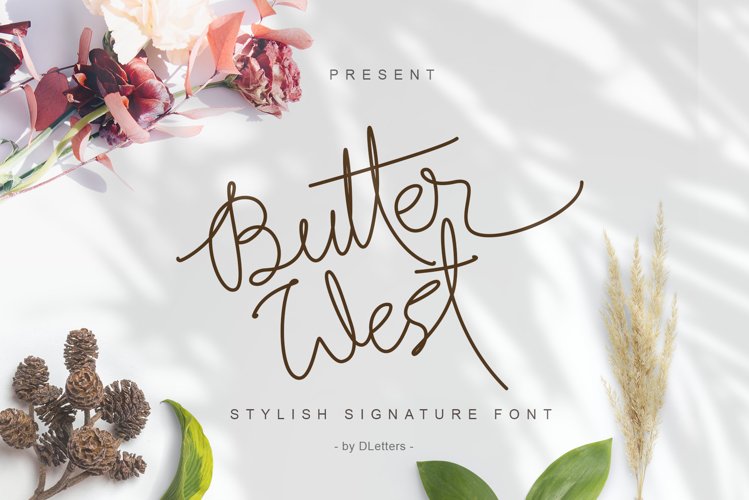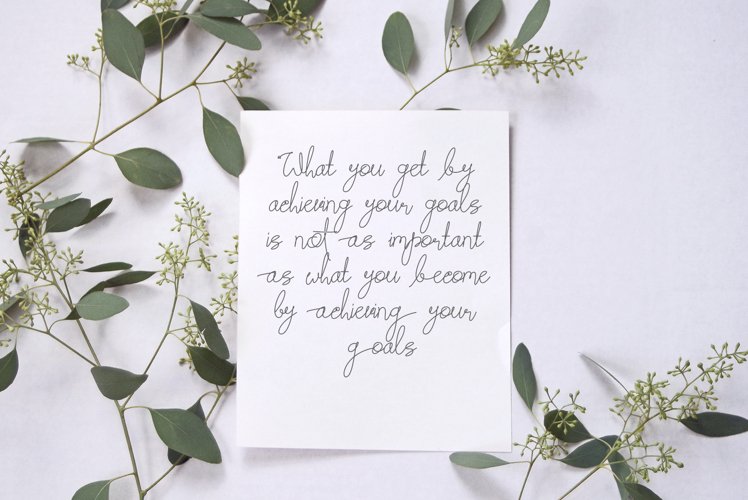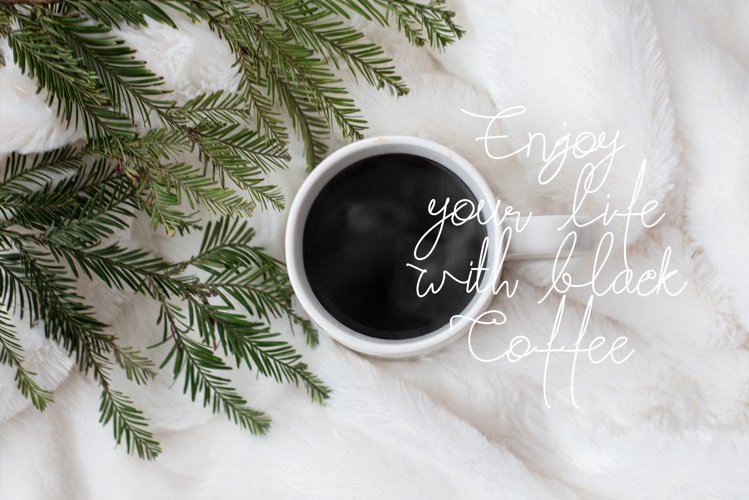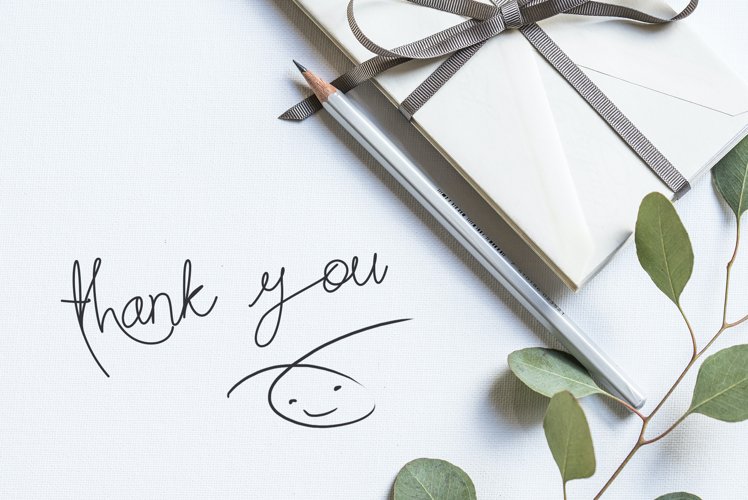
butter west | natural handwritten font
Butter West is a stylish handwritten font. It features an incredibly classic style, while still keeping a friendly feel. Butter West is the perfect font for making original and outstanding designs. This font is PUA encoded which means you can access all of the cute glyphs and swashes with ease! It also features a wealth of special features including alternate glyphs and ligatures.